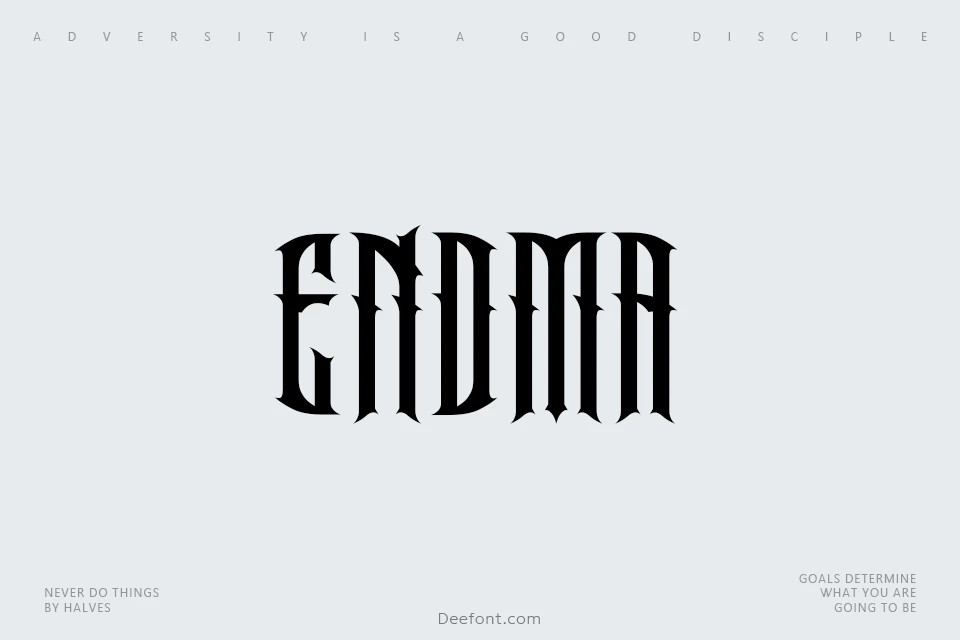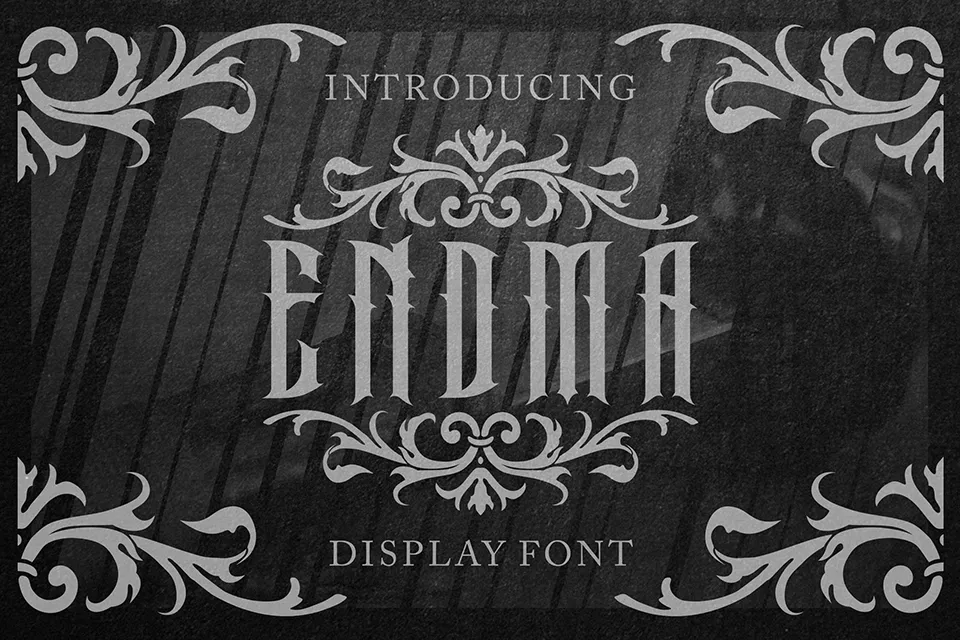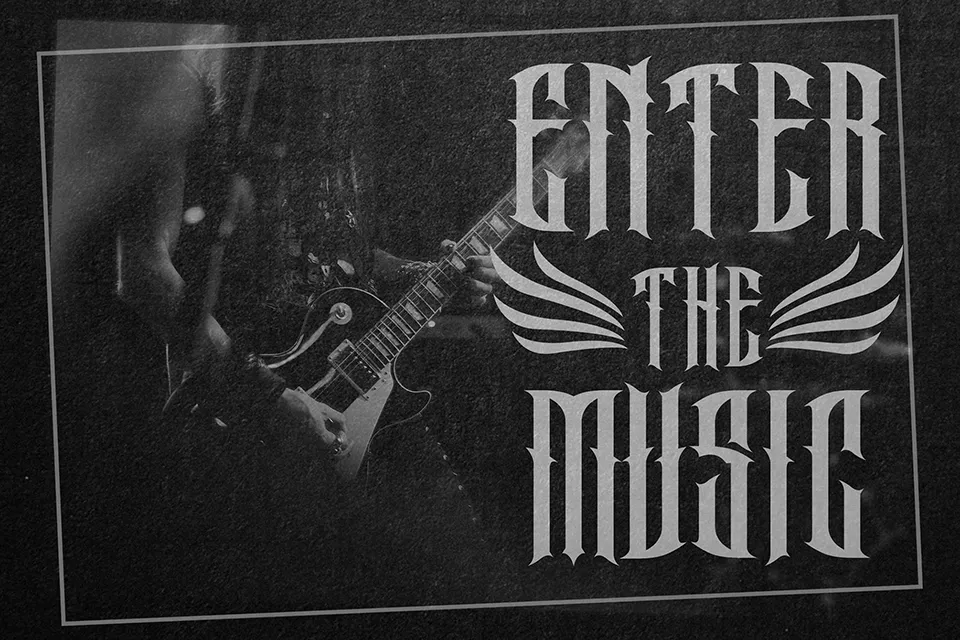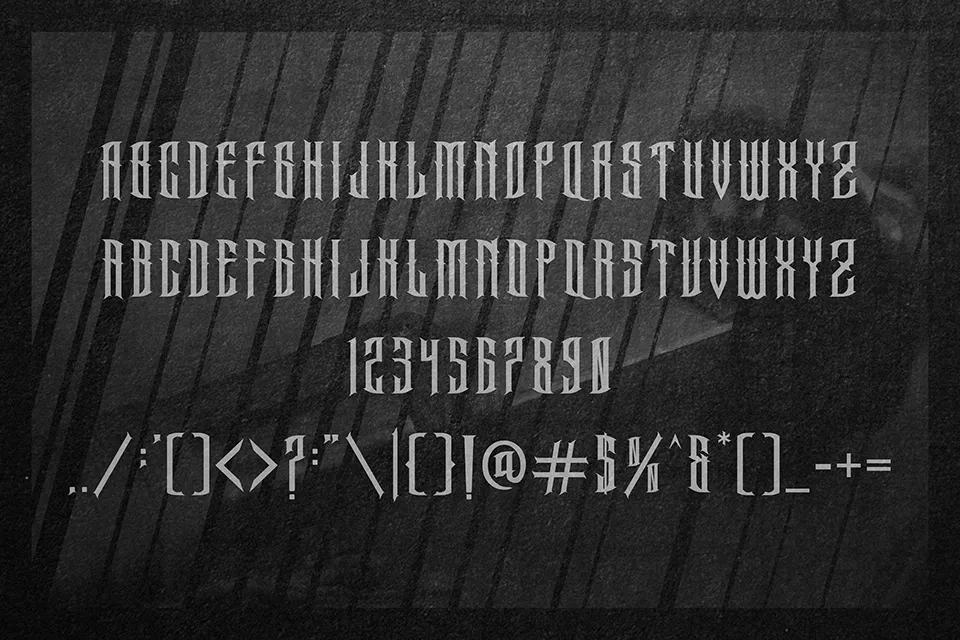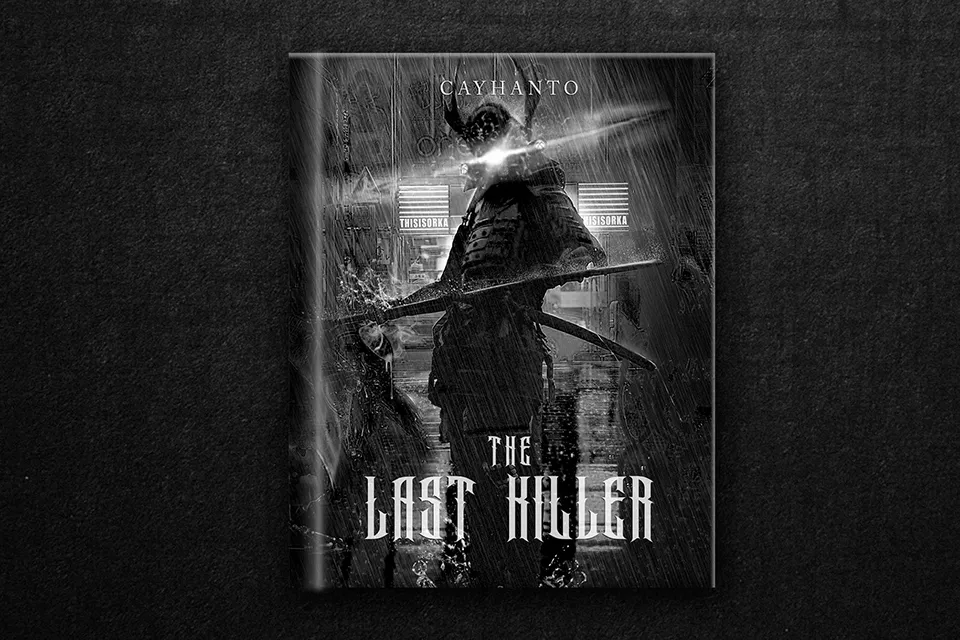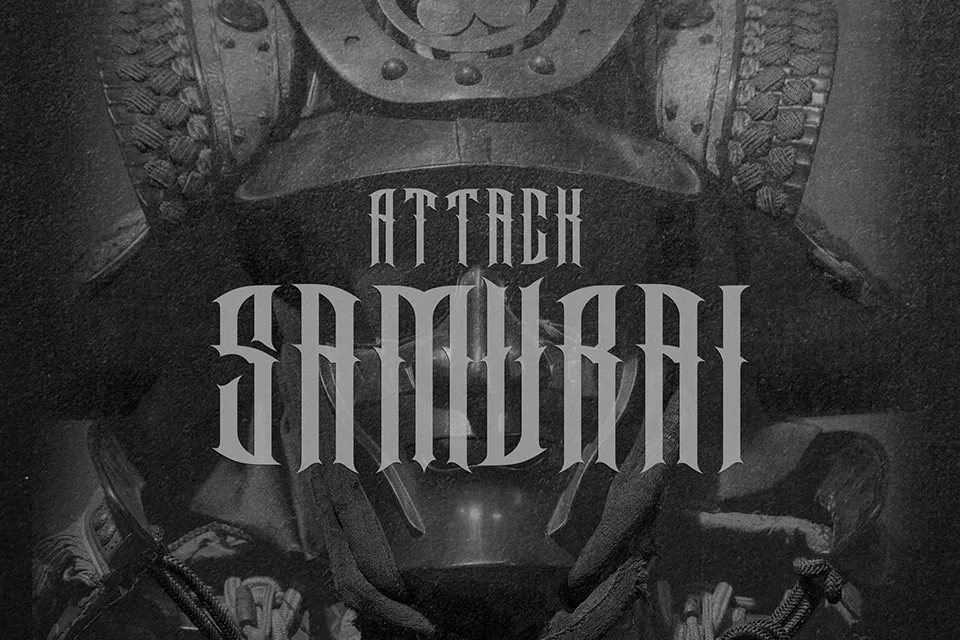
Endma Font
Endma Font is a bold, gothic-inspired display typeface characterized by its tall, jagged letterforms and vintage flair. Perfect for impactful headers, movie titles, logos, branding, sci-fi posters, packaging, and more, Endma Font draws attention with its dramatic and executive biker aesthetic. While it lacks lowercase letters, its striking uppercase design makes it ideal for projects that demand a powerful visual presence.